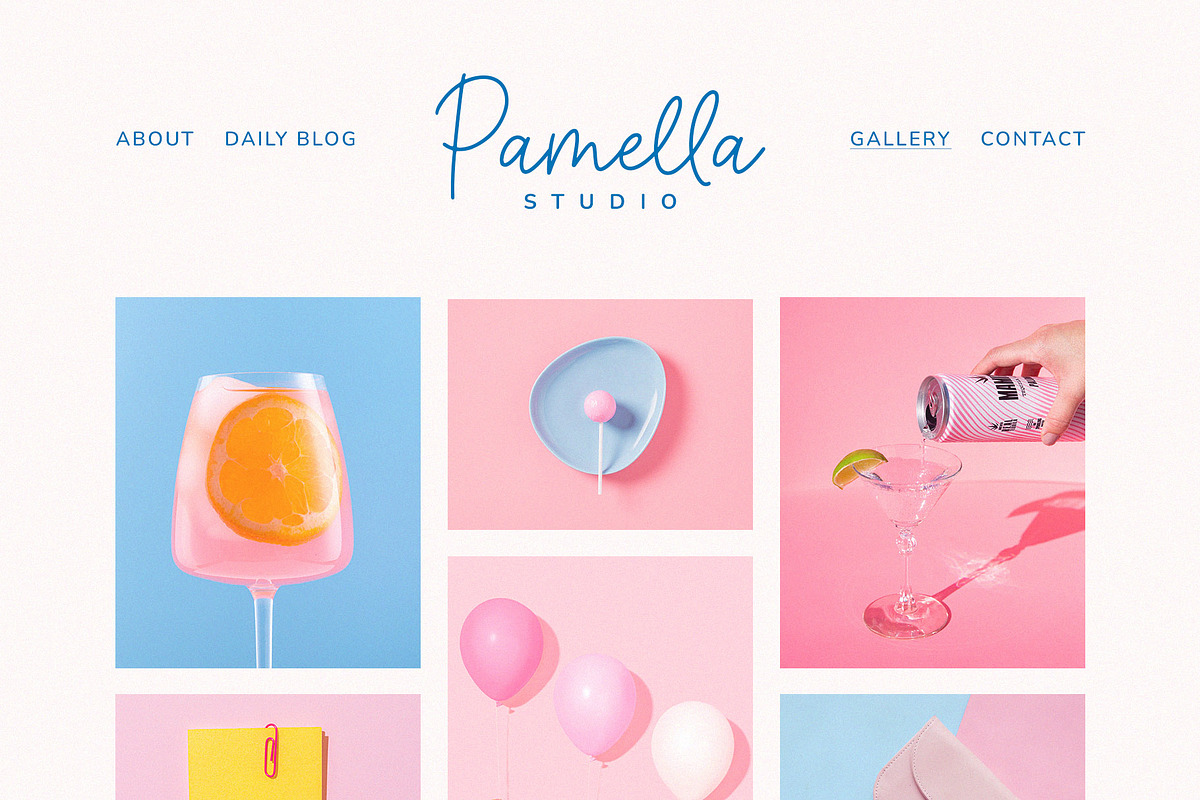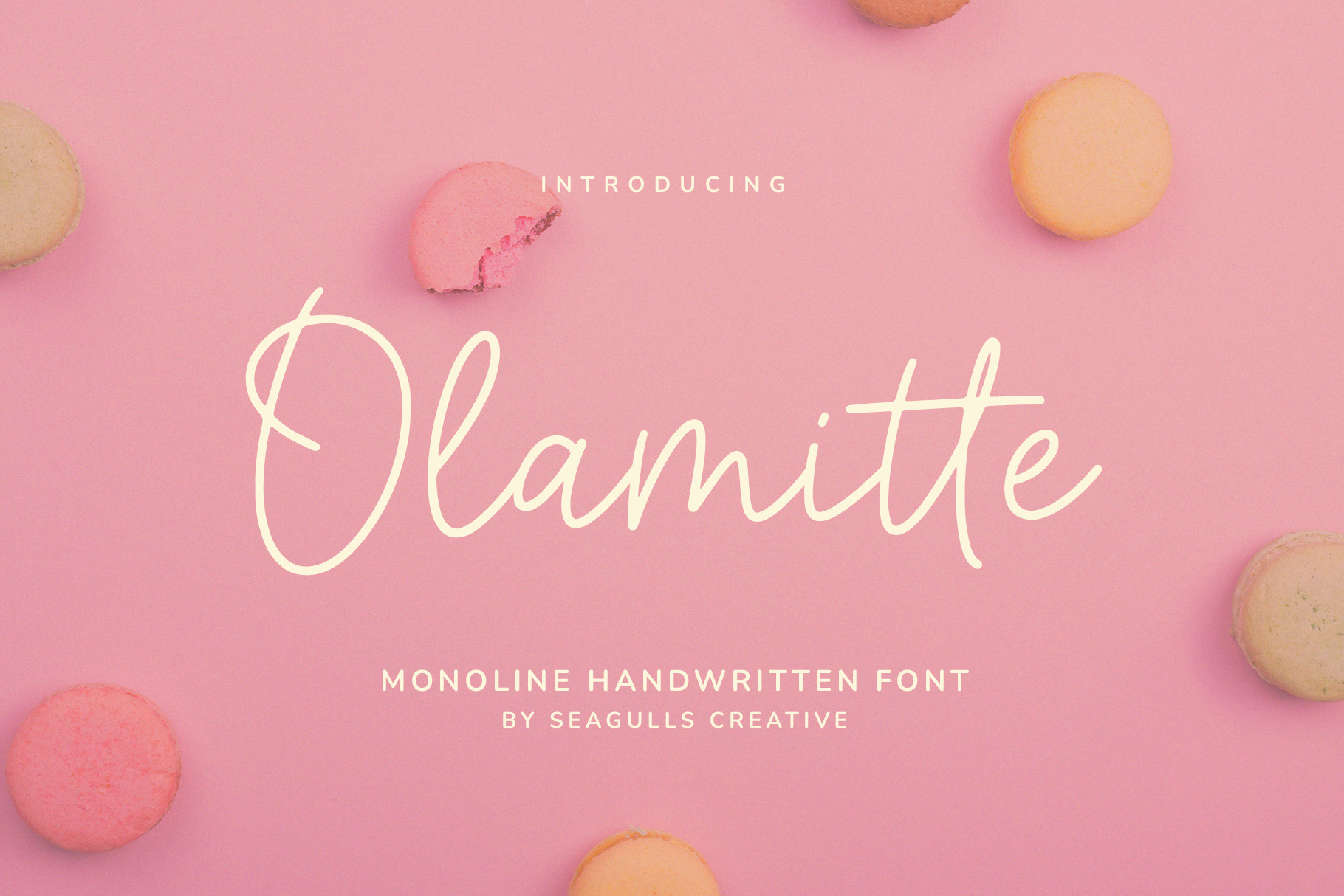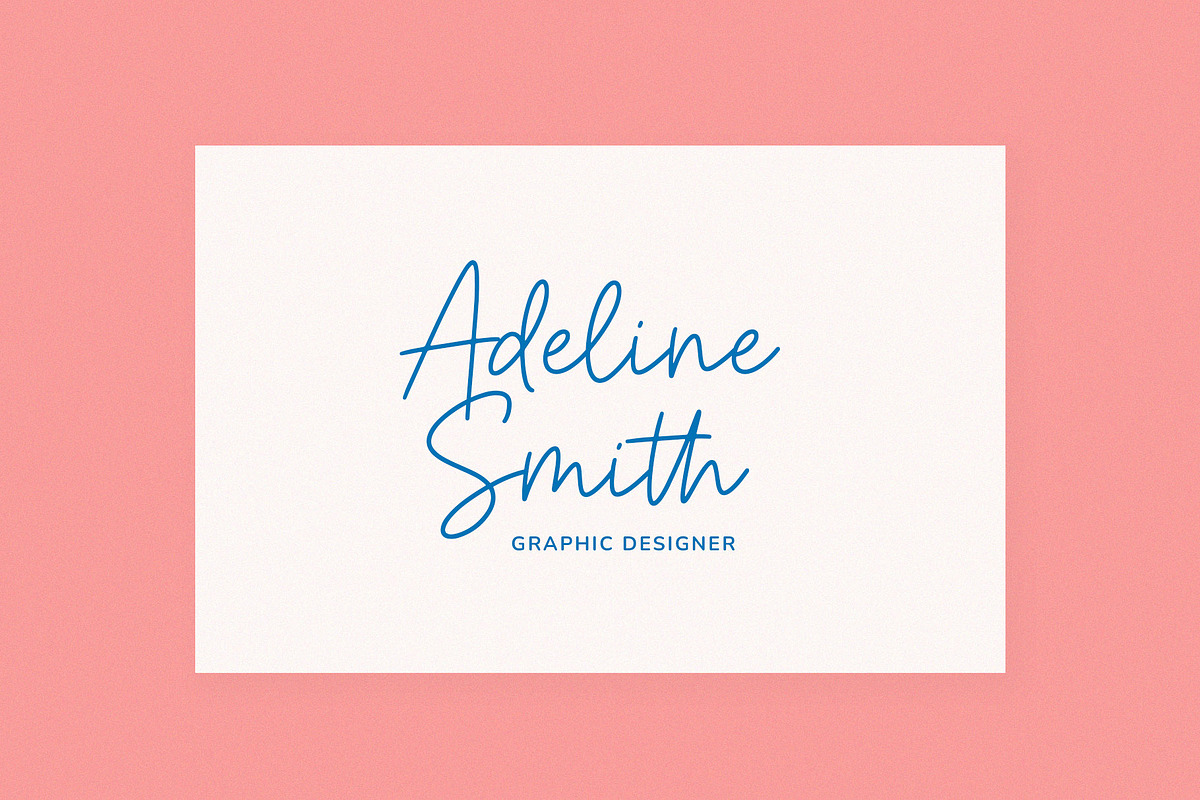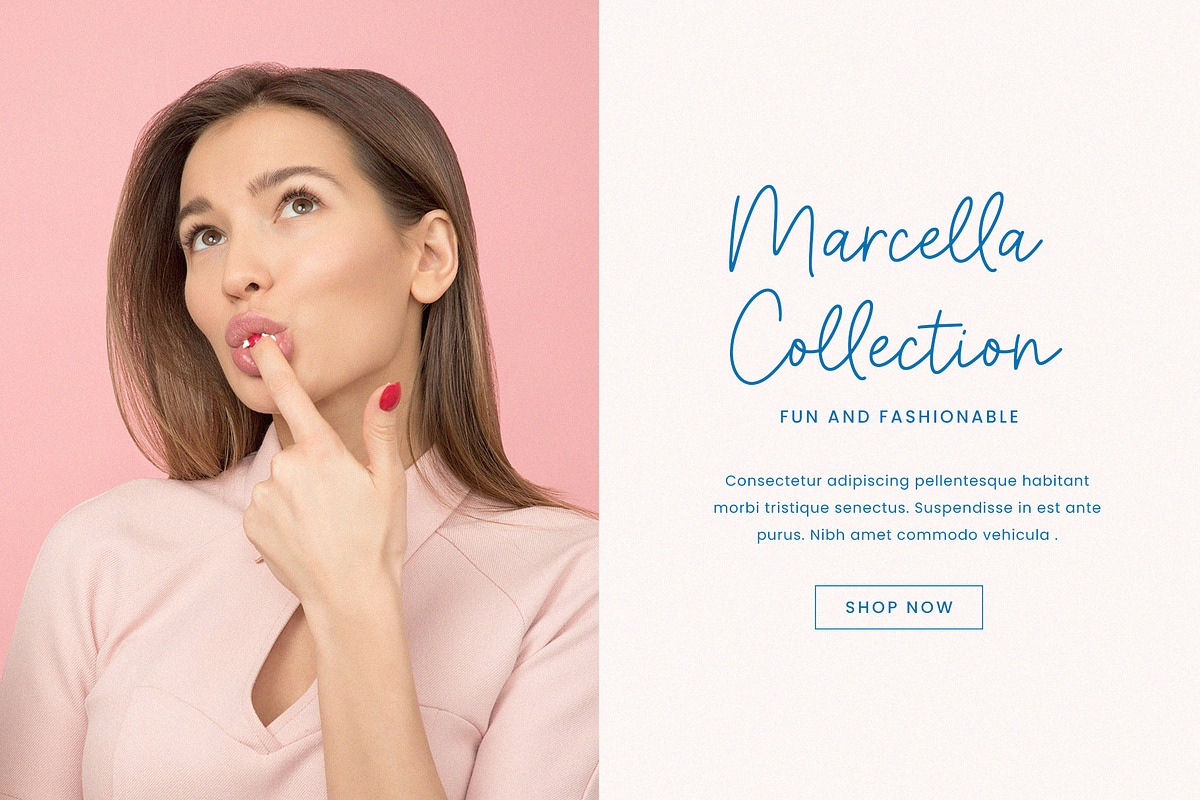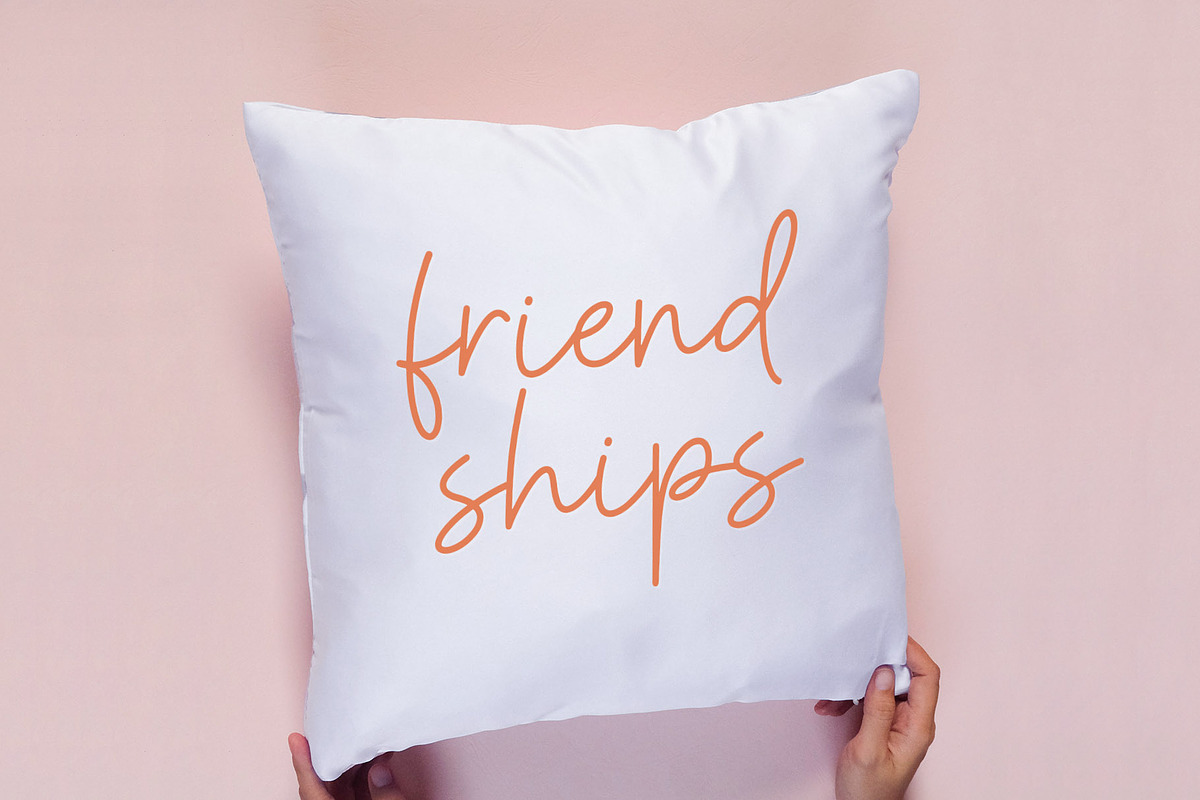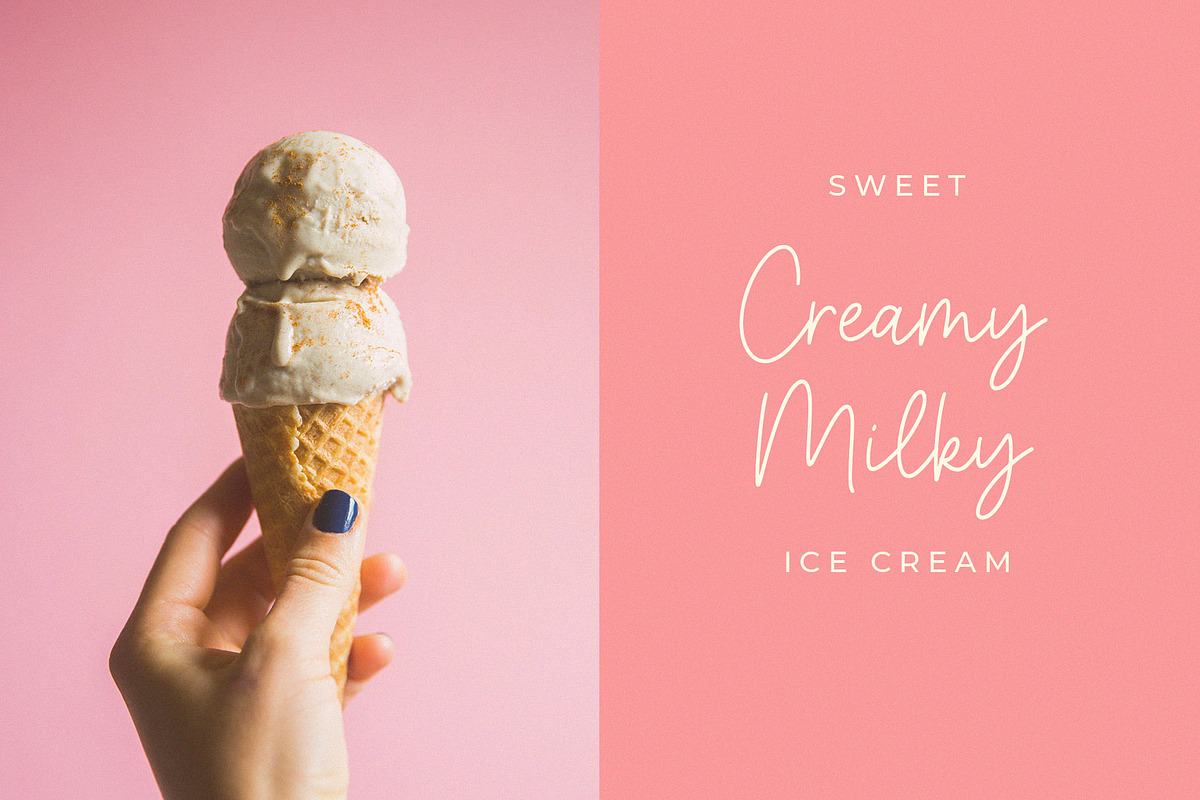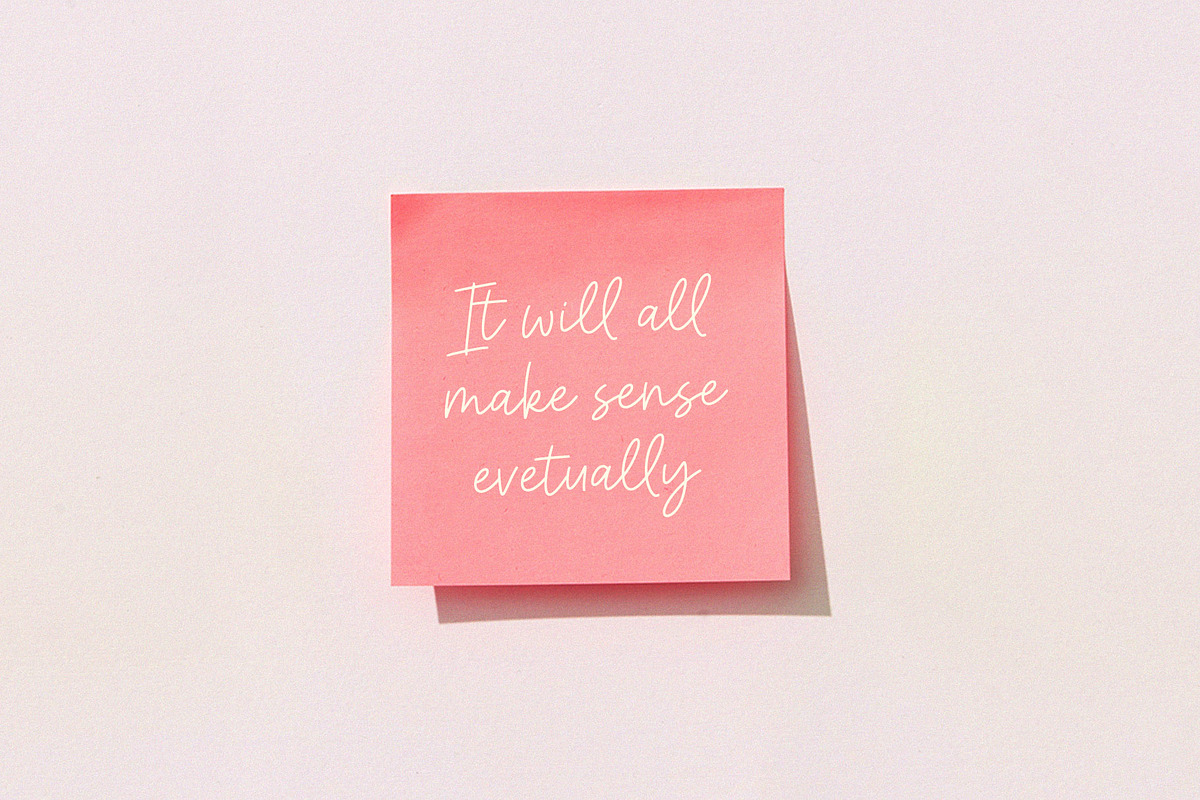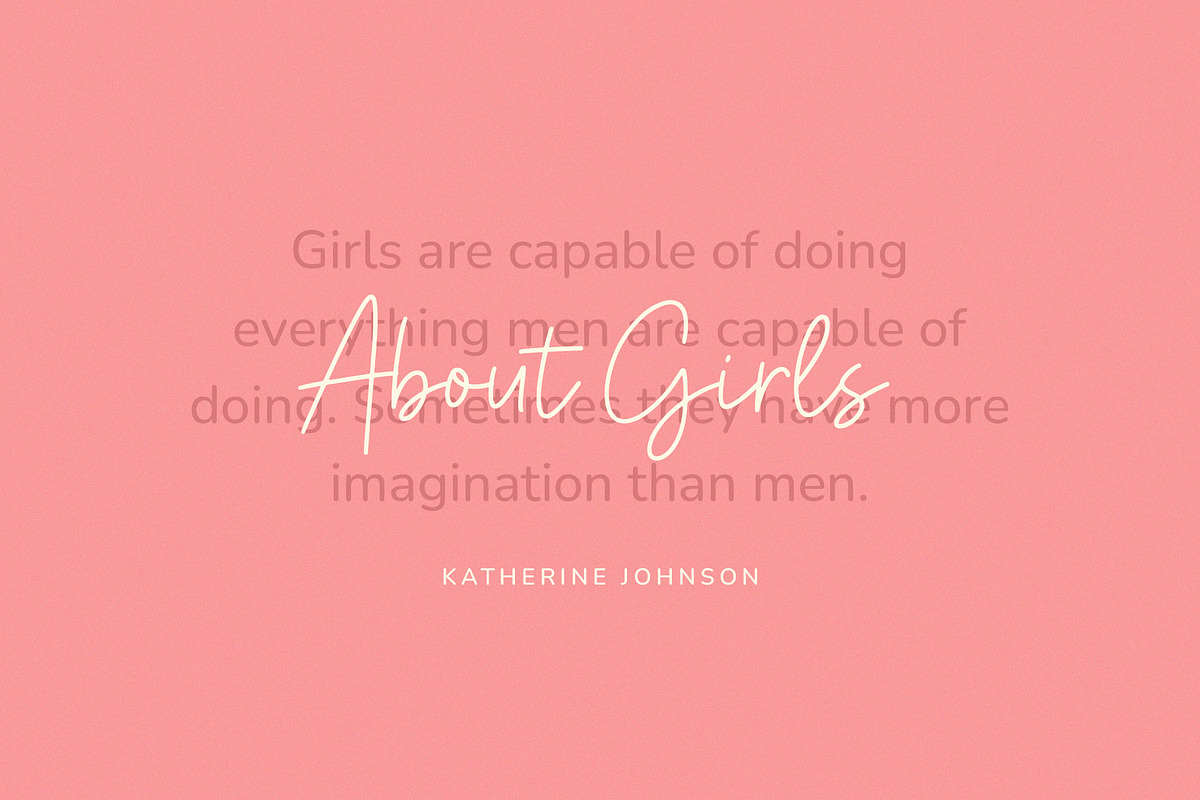
Olamitte Monoline Handwritten Font
Hello everyone, I would like to introduce Olamitte a monoline handwritten font with simple and natural cursive.
Olamitte can be used for branding, labels, watermarks, photography, wedding invitations, stationery, social media posts, advertising, signatures, packaging, product design, and more.